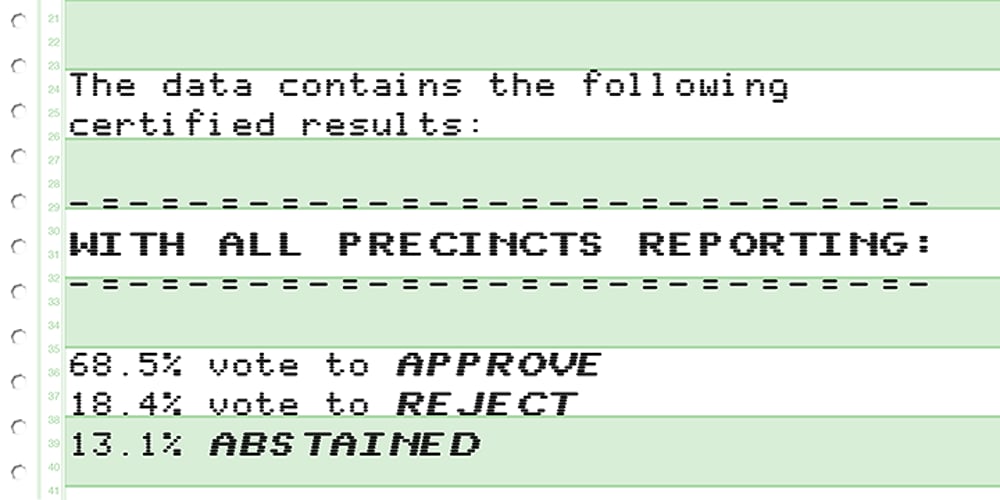
WL Rasteroids Monospace
WL Rasteroids Monospace font
WL Rasteroids Monospace Font Family was designed by Samuel Goldstein and published by Writ Large. WL Rasteroids Monospace contains 4 styles and family package options. Rasteroids Monospace is a typographic flashback to computing of the mid 1980s, when 9-pin dot-matrix printers were the state of the art, and most home computer displays were TVs hooked up to RF modulators. Rasteroids not only captures the dot-matrix printer look, but recreates the rasterized appearance of text on those lower-resolution monitors. Because of its fixed character width, Rasteroids Monospace is intended for use in accents or small areas of copy rather than long documents.